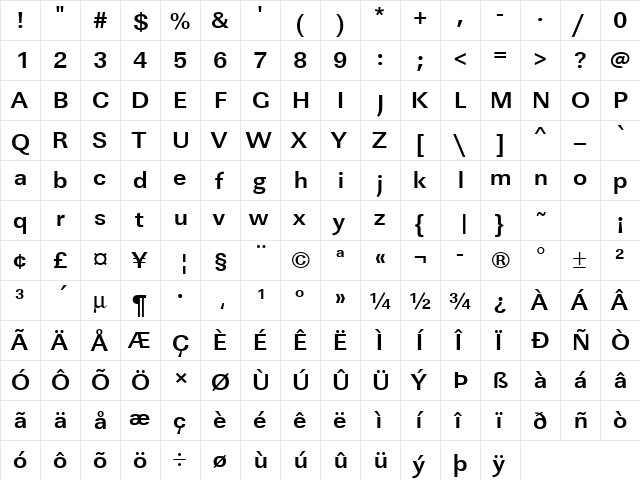
URWLinearTWid Bold Font Preview
URWLinearTWid Bold
Design Context for URWLinearTWid Typeface
URWLinearTWid is a composed and adaptable typeface that performs quietly and consistently across a wide range of design contexts. The heavy weight commands attention and anchors typographic hierarchies.